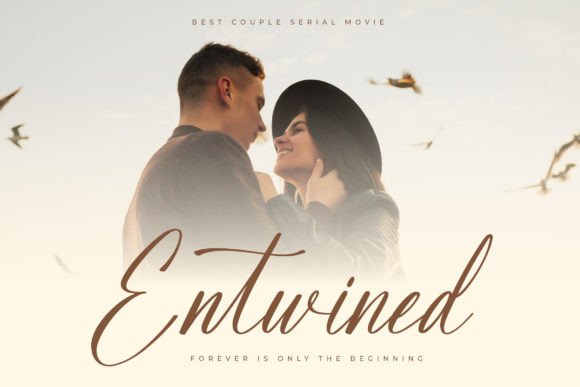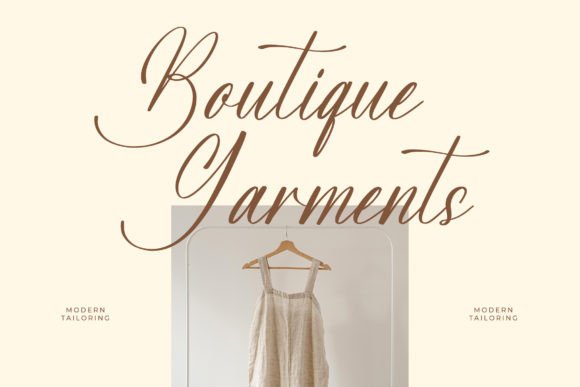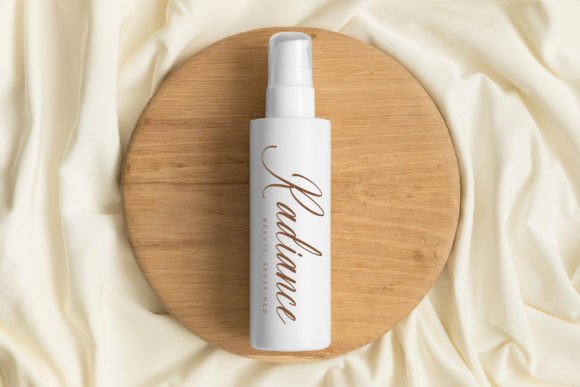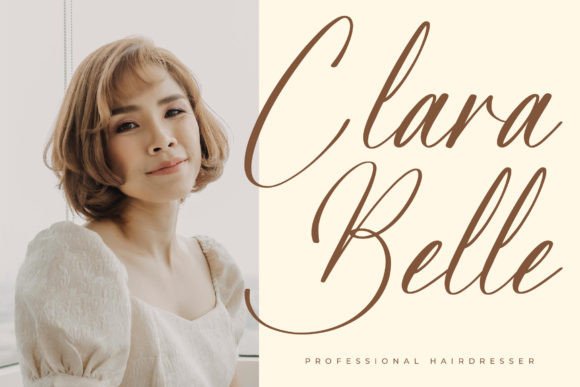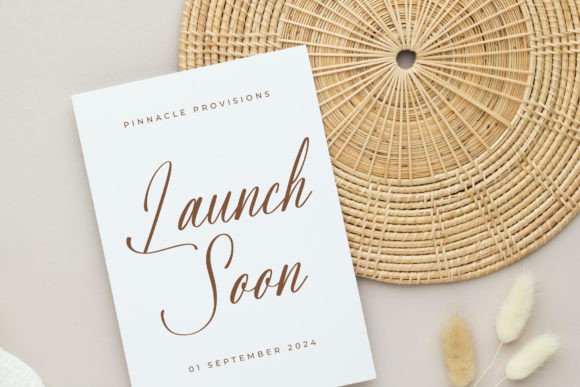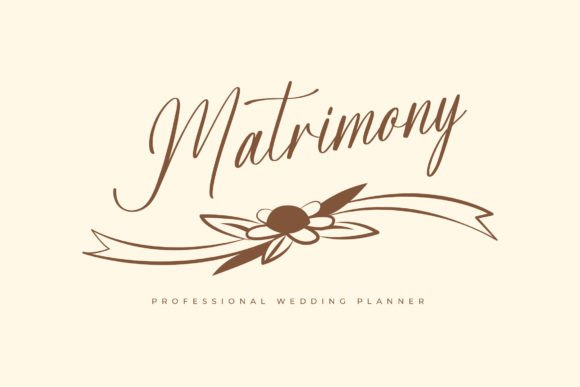
Unleash the Sophistication: Beautyna Amberosa Font
Have you ever found yourself scrolling through a design blog, mesmerized by the elegant typography and luxurious feel of a beautifully crafted logo? That’s exactly what happens when you get it right with the Beautyna Amberosa Font. This exquisite script font from Letterena is designed to elevate your projects to new heights, giving them a touch of sophistication and glamour that’s hard to resist.
As a designer, you’re constantly on the lookout for the perfect font to bring your vision to life. And that’s where Beautyna Amberosa Font comes in – a Luxury Script font that’s perfect for any project that demands elegance and refinement. With its versatility and timelessness, this font is a valuable addition to any designer’s toolkit, allowing you to create stunning logos, branding materials, and more.
Beautyna Amberosa Font Key Features
- Font Family: Beautyna Amberosa Font is a unique, hand-drawn script font with a beautiful, elegant design.
- Size: The font contains 300 glyphs, including uppercase and lowercase letters, numerals, punctuation marks, and special characters.
- Unique Characteristics: The font features beautiful, flowing connections between letters, giving it a handwritten feel, while maintaining legibility and readability.
Beautyna Amberosa Font Review
Overall, I’d say the Beautyna Amberosa font is a unique and stylish choice for any project. Here’s a breakdown of what works well and what doesn’t.
- Beautiful script-like connections: The font has a lovely, flowing feel to it, making it perfect for headings or titles that need a bit of flair.
- Wide character set: I was impressed by the font’s extensive character set, which includes a range of punctuation, symbols, and even some fun little icons.
- Easy to read: Despite its elegant appearance, the font is surprisingly easy to read, even at smaller sizes.
- Lack of bold weights: While the font has a range of regular weights, it’s a bit lacking in bold options, which can make it harder to use for body text.
- Not ideal for body text: Speaking of body text, the font can be a bit too ornate for larger blocks of text, making it harder to read.
- Not suitable for small sizes: While I mentioned the font is easy to read, it’s still not ideal for very small sizes, where the connections can get a bit lost.
Overall, I think the Beautyna Amberosa font is a great choice for projects that need a bit of elegance and flair. Just be aware of its limitations, and use it judiciously to get the best results.
To get the most out of Beautyna Amberosa Font, use it in combination with bold or italic text to create emphasis.
Use it in headings or titles to add a touch of elegance.
Beautyna Amberosa Font is ideal for:
Brand logos and identity design
High-end marketing materials